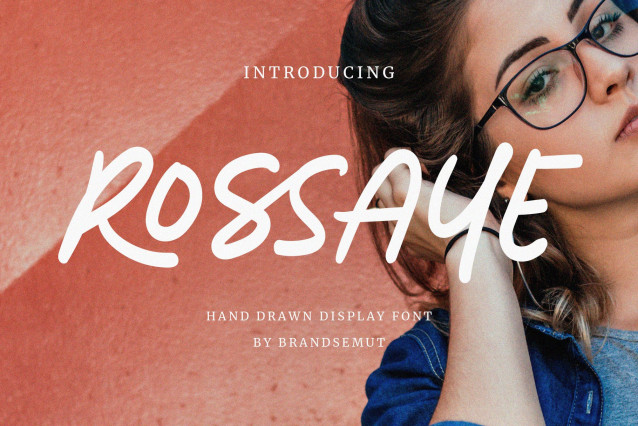
Rossaye Font
Rossaye Font is a handwritten font with modern and elegant style. Best used as a display for headings, quotes, logos, branding, product packaging, invitations, etc.